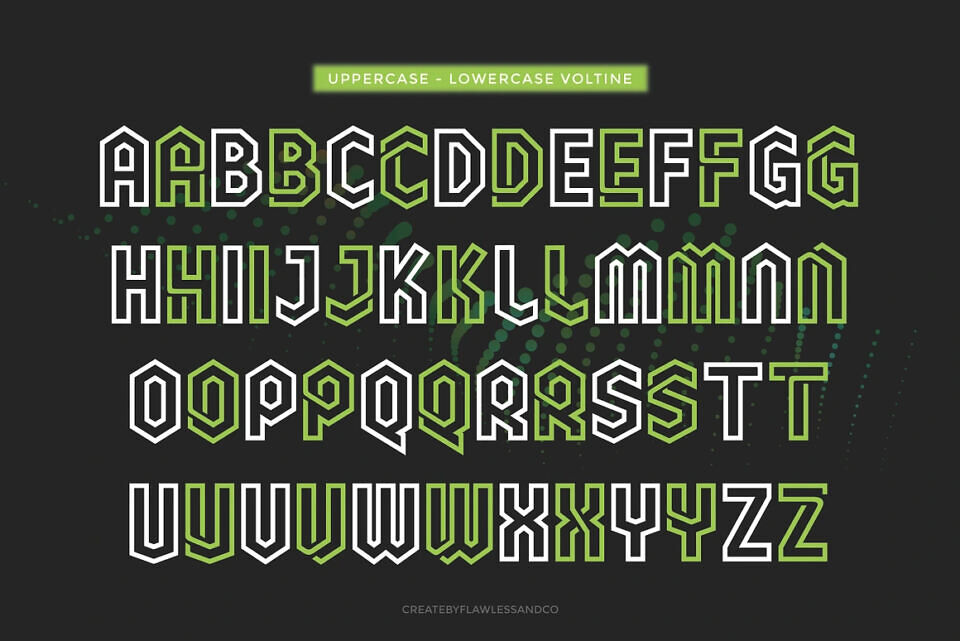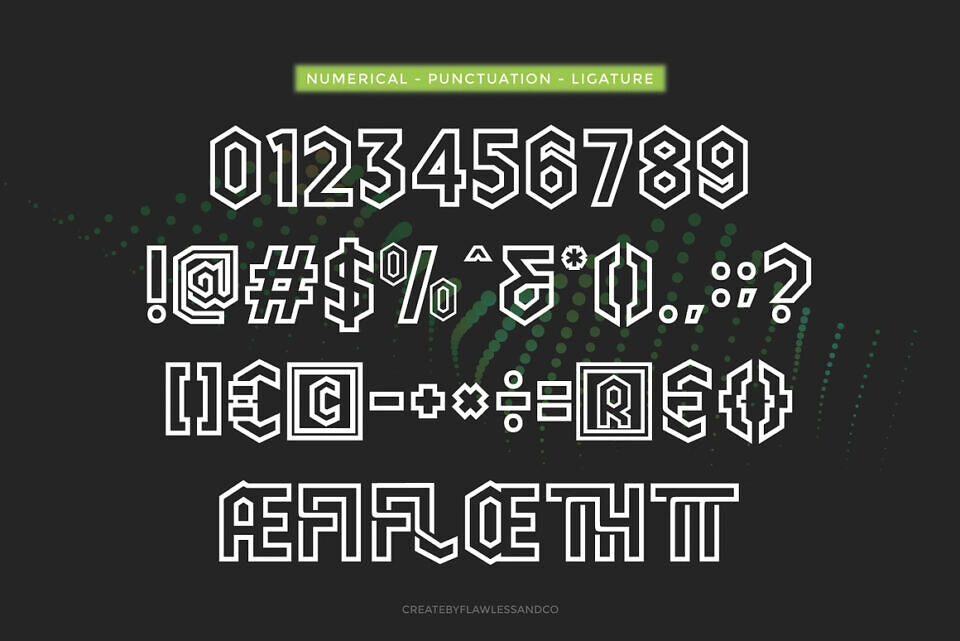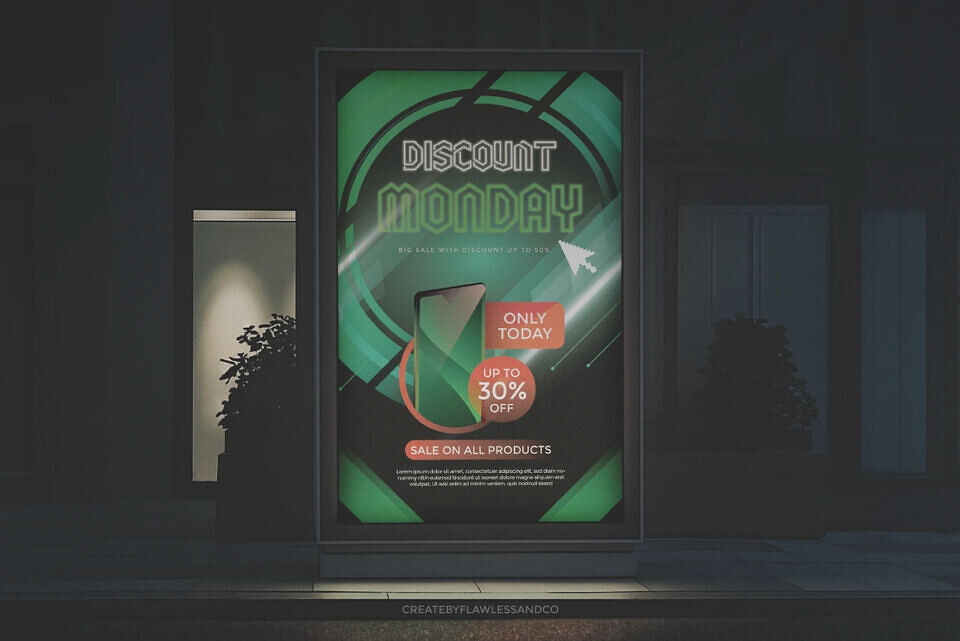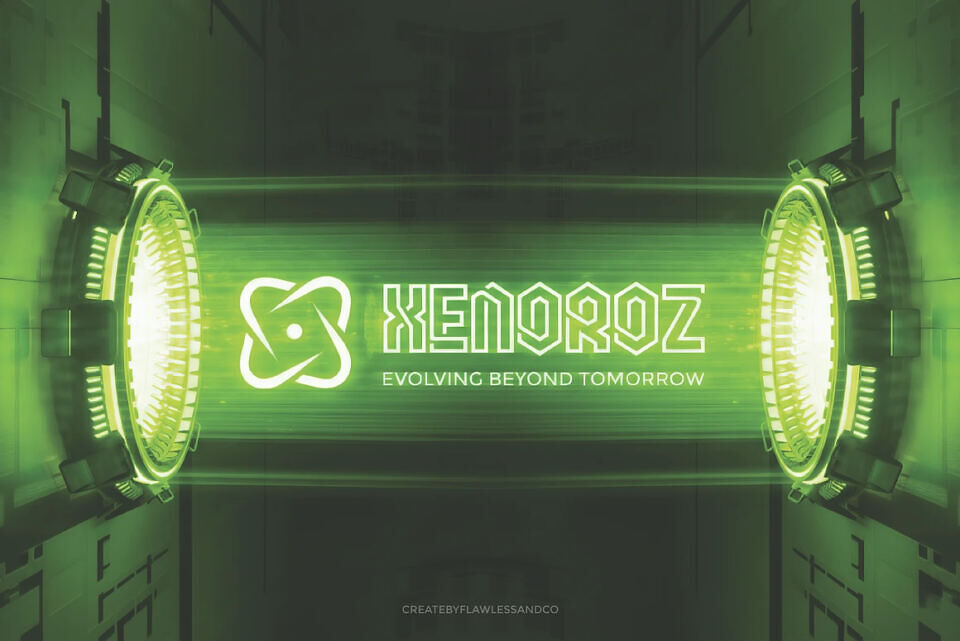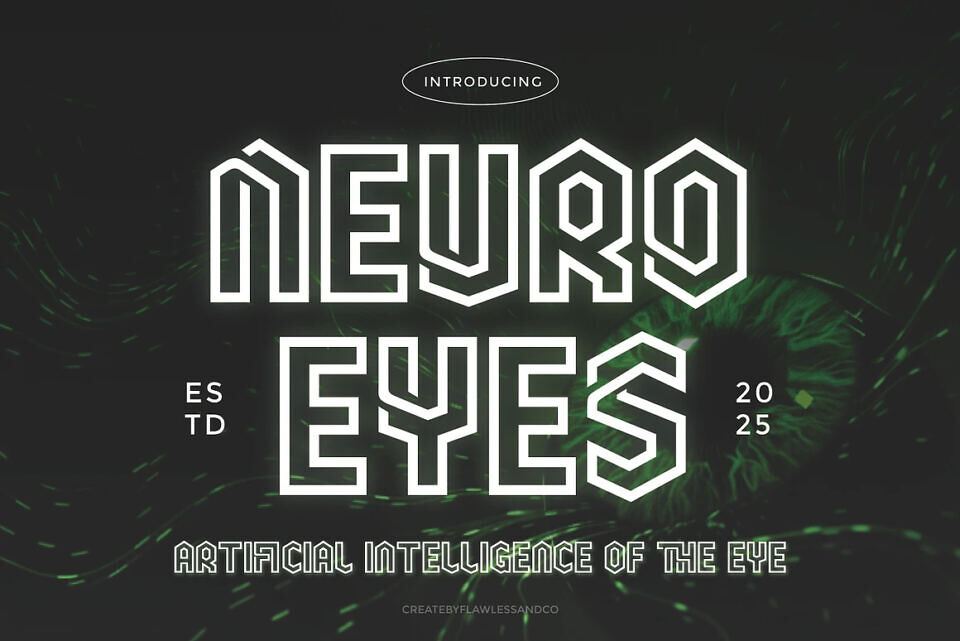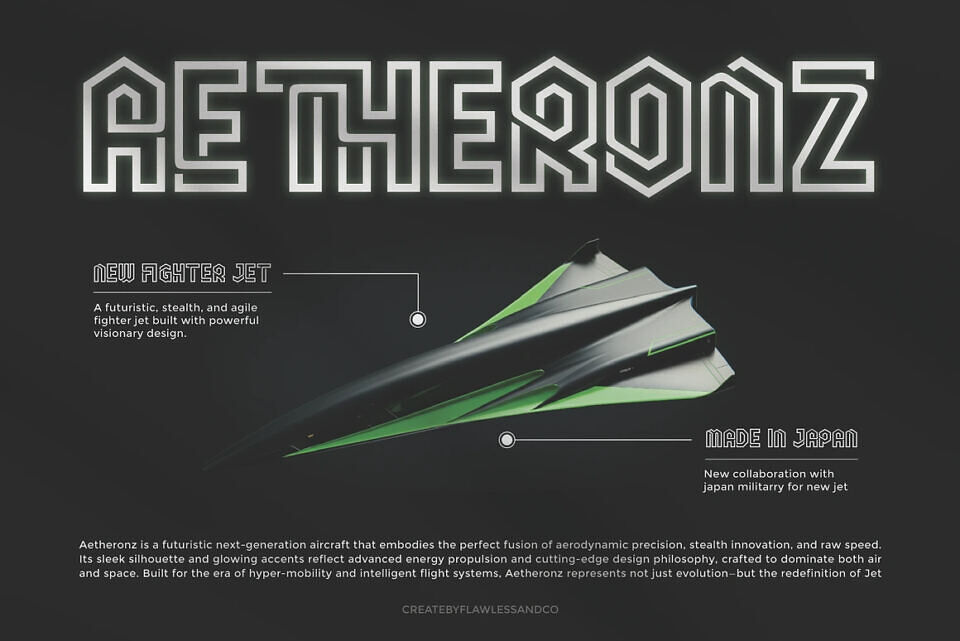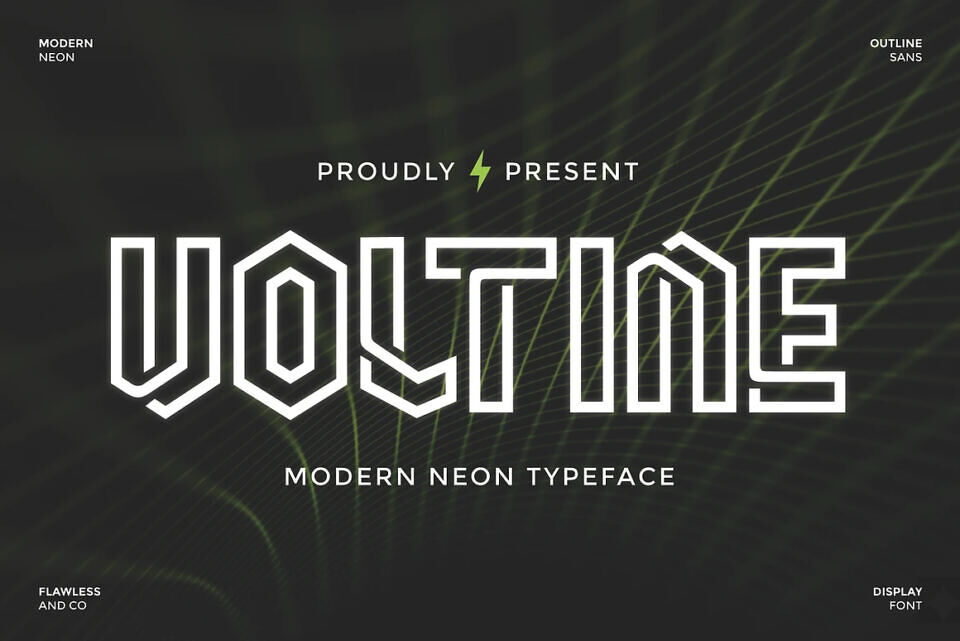
Voltine Font
Voltine is a modern neon font that blends futuristic energy with geometric precision. Designed with sleek outlines and sharp angles, Voltine captures the essence of electric light — bold, bright, and dynamic.
Perfect for creating glowing visuals, Voltine brings a sense of movement and innovation to any project. Its clean structure and modern neon aesthetic make it ideal for logos, posters, branding, and digital designs that need a striking, high-tech appearance
Voltine is designed for creatives, designers, and brands who want to capture a futuristic and energetic aesthetic in their work. It’s the perfect choice for projects that need a modern glow and bold presence.